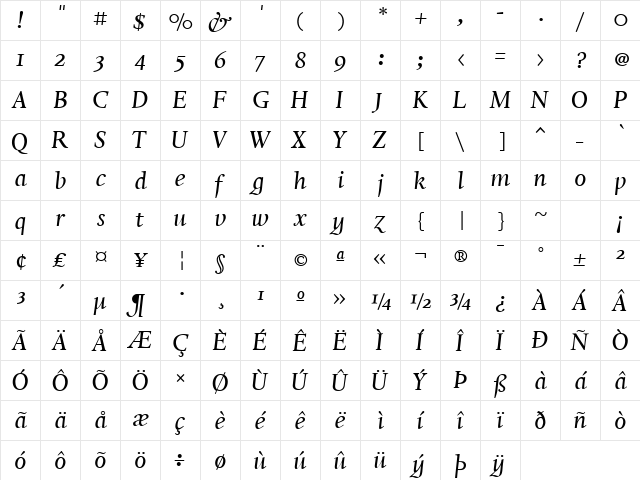
Whitenights LT Std It Regular Font Preview
Whitenights LT Std It Regular
Whitenights LT Std It Regular Font Details
| Foundry | Linotype Library GmbH |
| Designer | Lars Berquist |
Design Context for Whitenights LT Std It Typeface
Whitenights LT Std It offers clean, dependable letterforms without strong stylistic allegiance, making it a practical choice for designers who need flexibility. Its slender proportions lend an understated elegance to any composition.